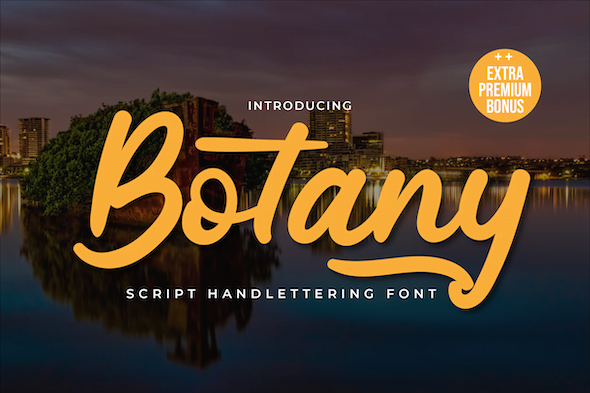
Botany
Introducing our newest Font Botany.
This font is made with original hand-drawn strokes for a relaxed, beautiful, and elegant feel.
This font also offers beautiful abstract typographic harmony for a wide variety of design projects, including natural handwriting in digital form for designs, Quote designs, for social media business designs, advertisements, trademark brands, promotional banners, lettering, posters, signatures, and all designs requiring handwriting or whatever design you want.
This charming font also offers the beauty of abstract typography harmony for a wide variety of design projects, including digital natural handwriting for designs, quote designs, for social media business designs, advertisements, trademarks, food and beverage promotion banners, text, posters, a signature, and all designs require handwriting or whatever design you want.